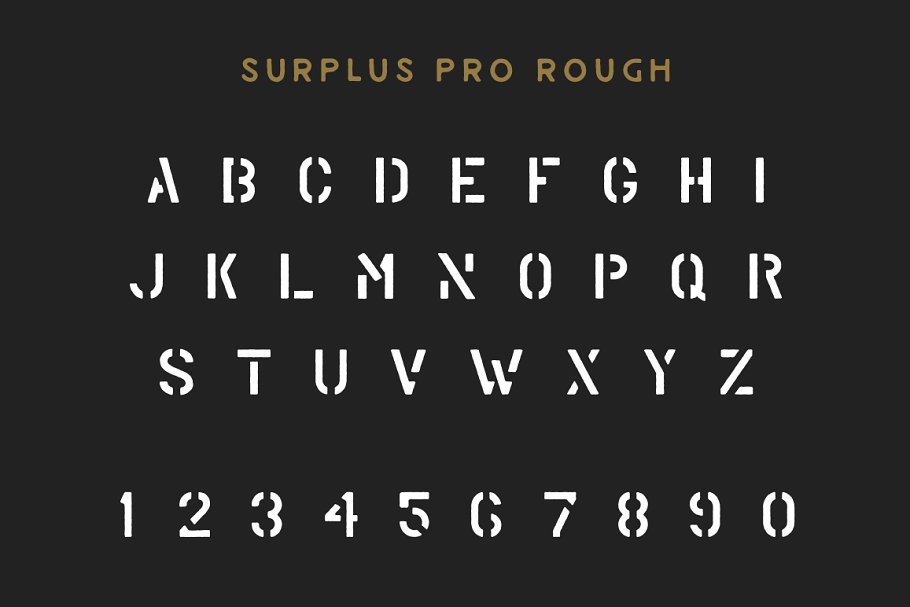
About the Surplus Pro Styles Font
Surplus Pro was inspired by the classic vintage military stencil, I wanted a typeface that could be a solid base for any military inspired project, Includes:OTFTwo StylesRegular and RoughUppercase Display FontNumbers